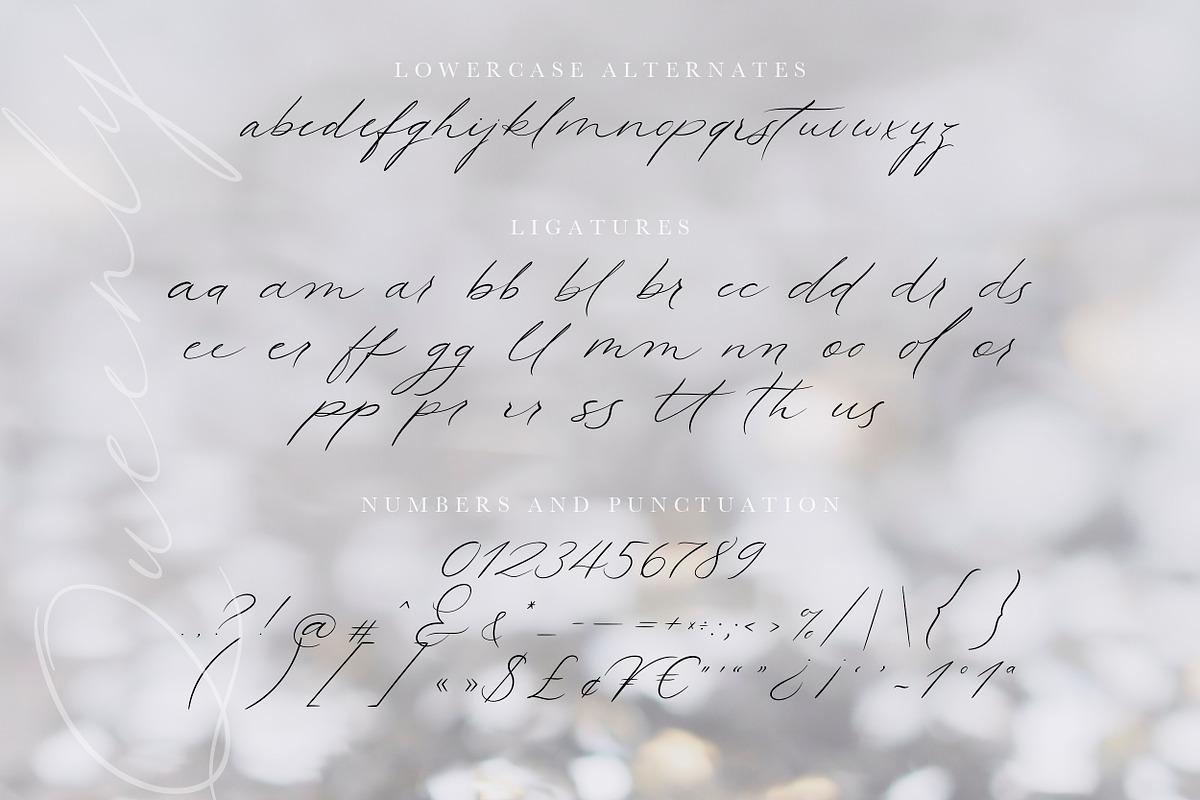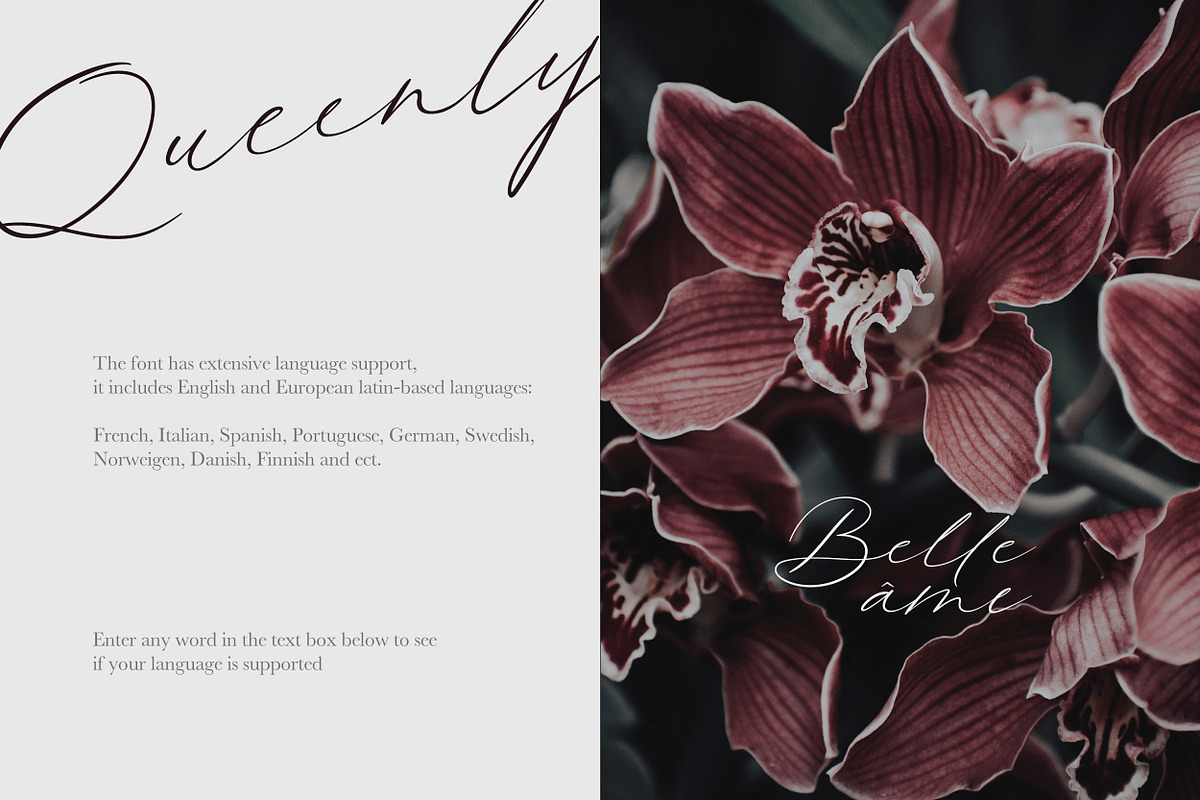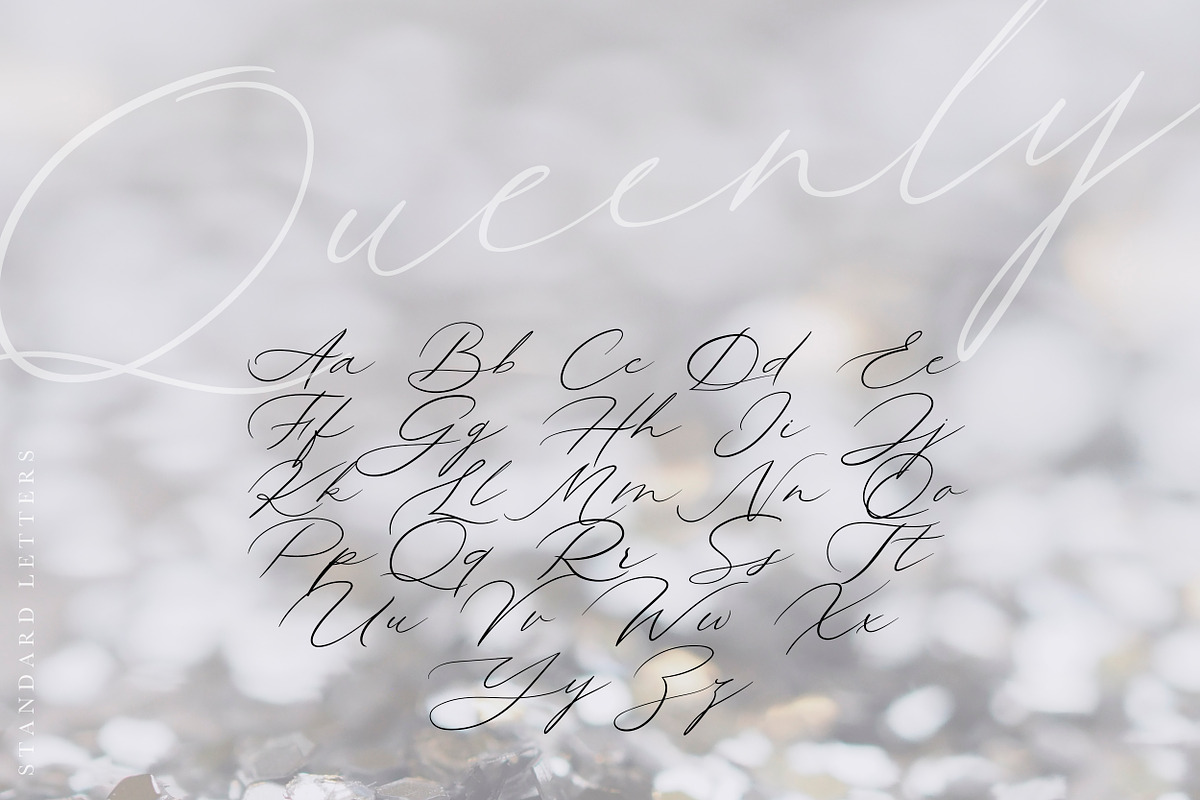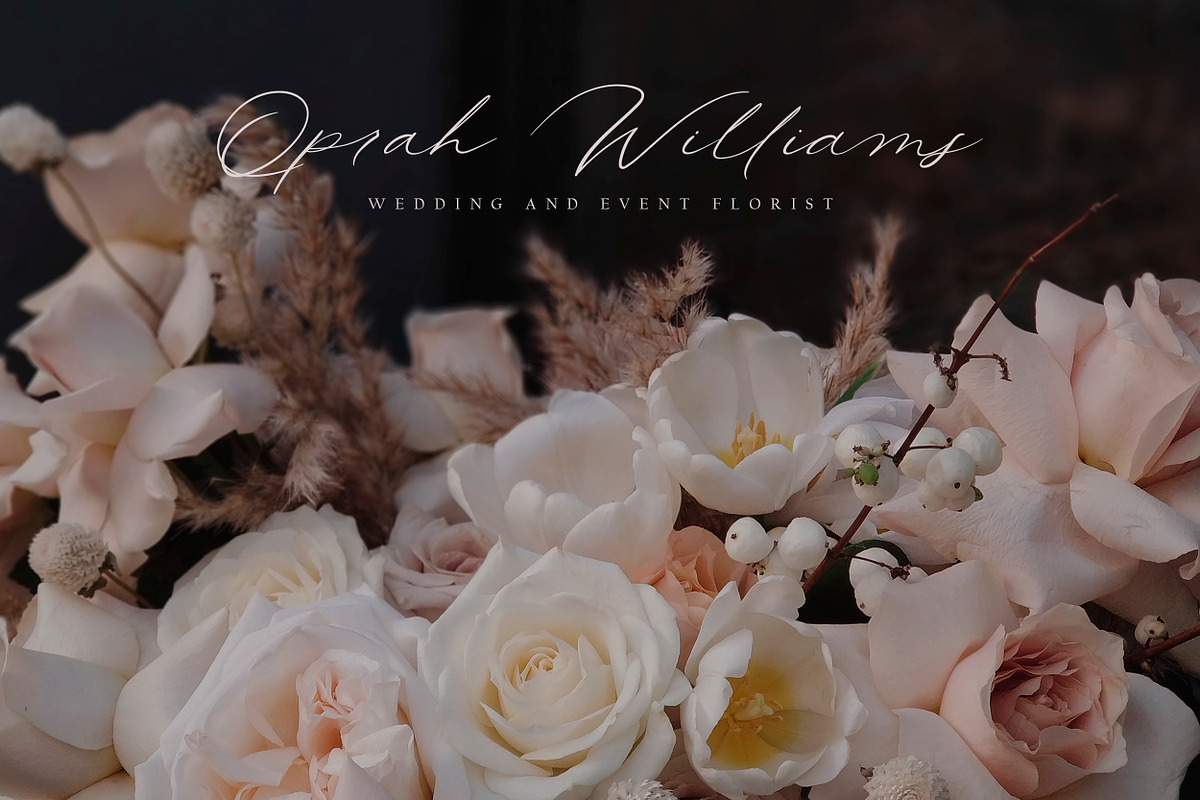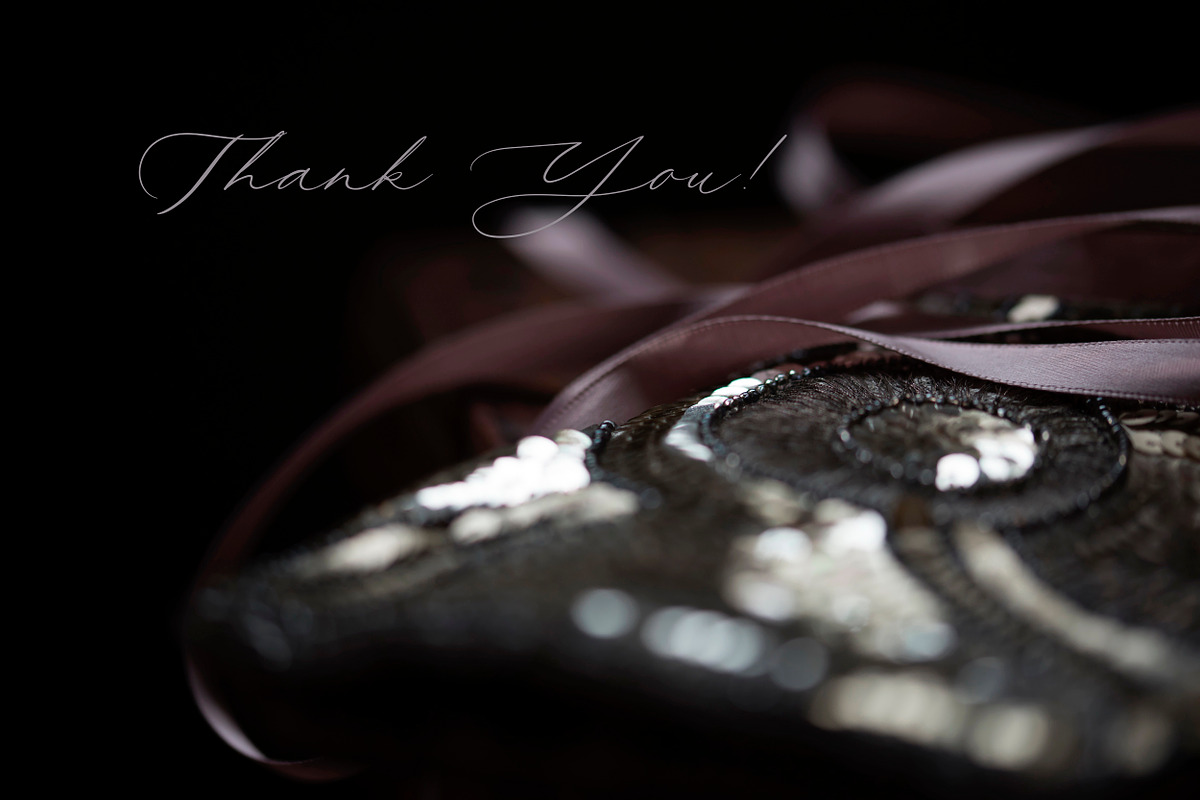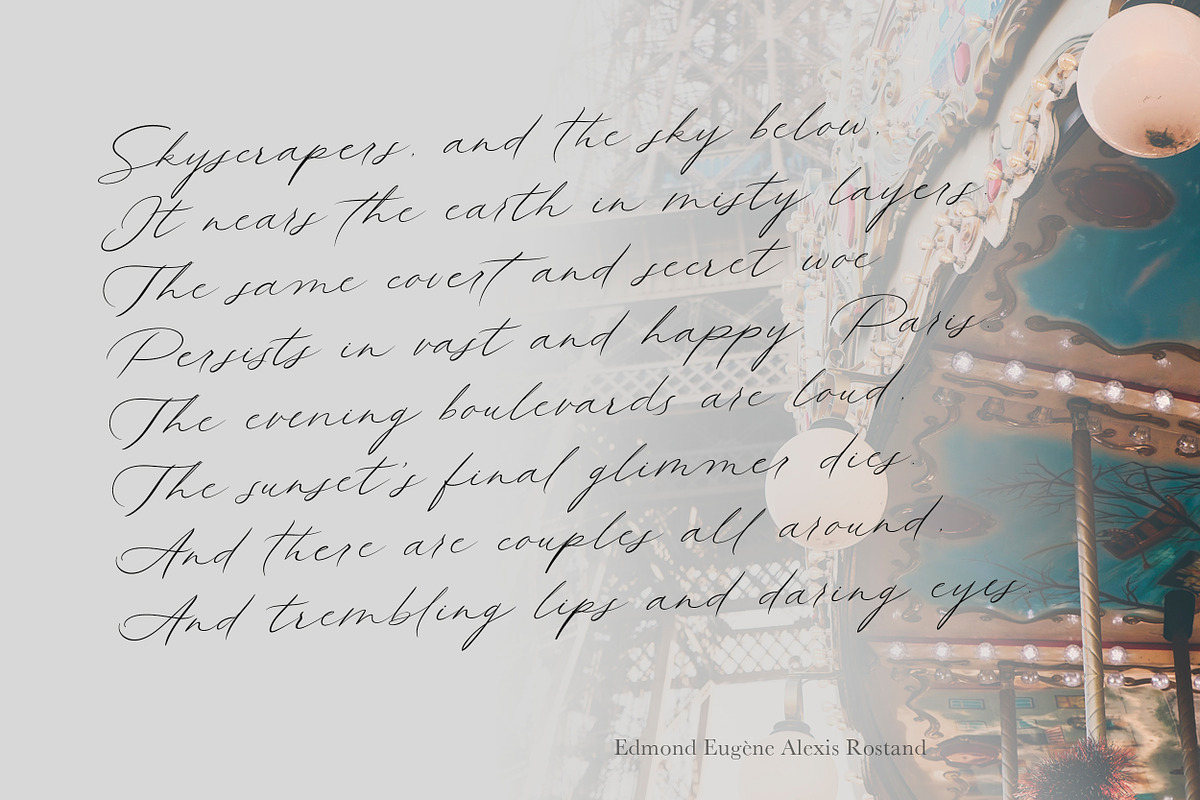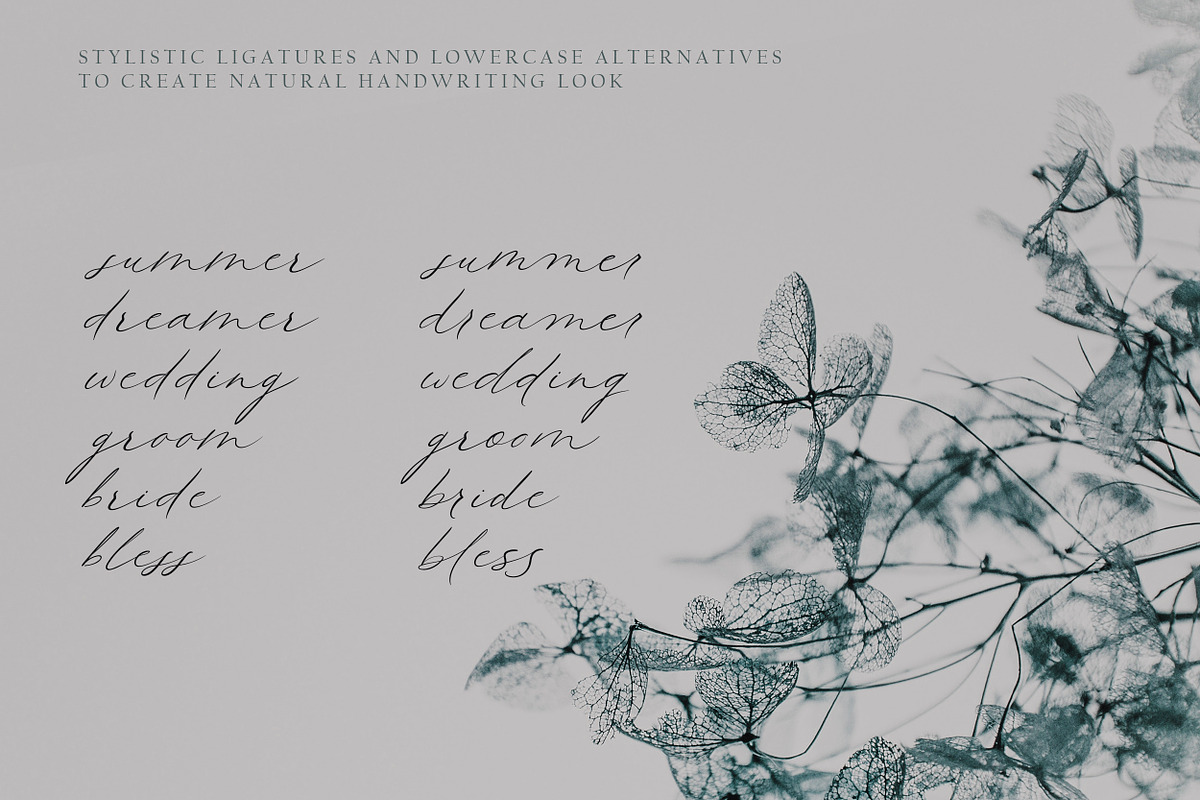
Queenly. Handwritten Font
I’m pleased to introduce my handwritten font Queenly.
Queenly is an elegant, feminine font. Modern calligraphy uppercase letters are ideal for your wedding monograms and logos. Use this font for wedding invitations, branding, packaging, magazines, florist shops, social media, restaurant menus, greeting cards, headers and many more.
This font includes ligatures and full set of lowercase alternates to make your text as close to a natural handwritten script as possible. It's perfect for wedding design projects, instagram, invitations, signatures, watermarks, logos, letterpress address, titles, birthday invitations, handwriting and other.
The font has extensive language support, it includes English and European latin-based languages: French, Italian, Spanish, Portuguese, German, Swedish, Norweigen, Danish, Finnish and other.